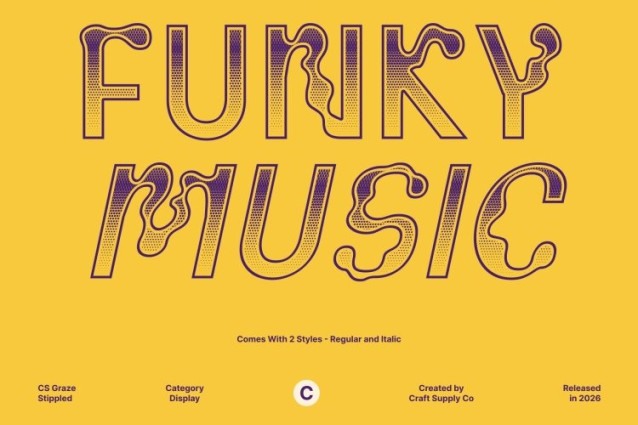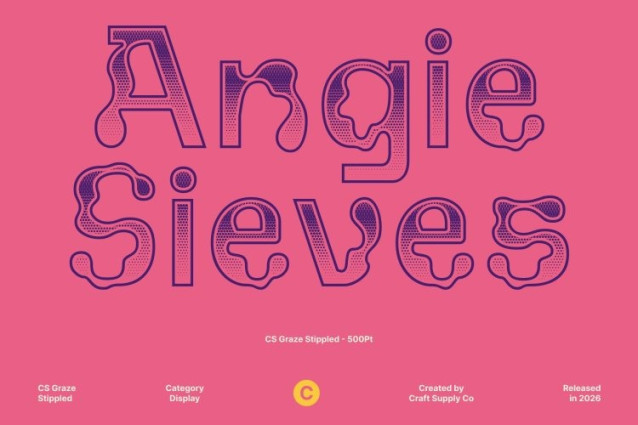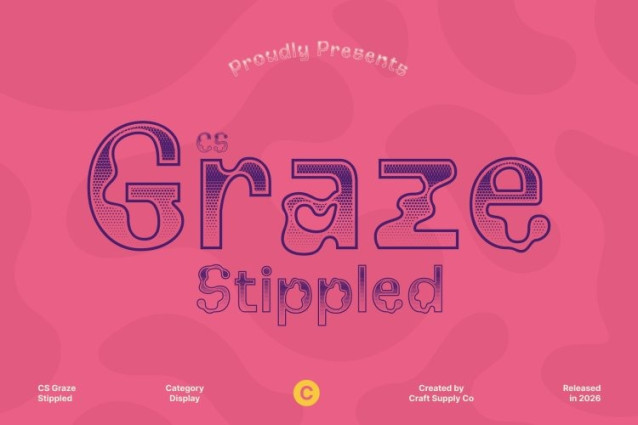
CS Graze Stippled Font
CS Graze Stippled Font – This is a vibrant psychedelic display font that radiates funky energy through its curved, wavy, and distorted letterforms. Inspired by the bold visual language of 1960s psychedelic design, the font embraces unconventional shapes that create a sense of movement and visual rhythm. The addition of a stippled texture introduces a subtle dotted surface across the characters, adding depth and a handcrafted feel that enriches its retro personality.
Curved and Dynamic Letterforms
The flowing curves and warped structures of this font create a lively typographic style that feels expressive and imaginative. These distorted forms evoke the spirit of psychedelic art, where letters seem to bend, stretch, and move across the page. The stippled detailing enhances the bold shapes by adding texture without diminishing their playful clarity.
Bold and Unconventional Visual Impact
This is designed to stand out. Its funky and energetic appearance brings a sense of fun and experimentation, making it perfect for designs that aim to break away from traditional typography. Whether used in bright colors or minimal palettes, the font maintains a strong and engaging visual presence.
Perfect for Creative and Artistic Projects
This font is ideal for concert posters, art festival promotions, album covers, merchandise, and experimental graphic design. Its psychedelic inspiration combined with textured detailing helps create visuals that feel vibrant, nostalgic, and creatively bold.